What Font Does Spotify Use?
Crazy about the Spotify brand? Well, that's not a surprise. With over 574 million monthly active users, Spotify is one of the most popular music streaming spaces in the world.
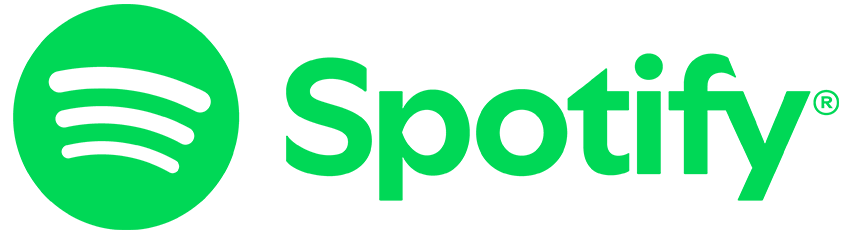
Today we will take a look at the brand and answer some of your most burning questions, like "What font does Spotify use?" and where you can find fonts similar to Spotify fonts.
What Is Spotify?
Spotify is a Swedish audio streaming provider founded by Daniel Ek and Martin Lorentzon in 2006 as a way to address the problem of music piracy, which was a growing challenge for the music industry and costing it millions of dollars.
Spotify offers recorded audio content, including music and podcasts, from record labels and media companies across the world, that you can listen to for free via the Spotify app. You can listen to Spotify on a range of devices, from your phone to TV, and transition from one to another with Spotify Connect. You can also upgrade to Spotify's paid service Spotify Premium to access more features.
Unlike downloads or physical sales that pay artists a fixed price per song or album sold, Spotify pays royalties based on the number of artist streams as a proportion of total songs streamed.
Today, Spotify is one of the largest music streaming service providers in the world, with over 574 million monthly active users and 239 million paying subscribers in more than 180 markets.
What Font Does Spotify Use?
In May 2024, Spotify updated its logo with a change to a new custom-created typeface called Spotify Mix. Created in partnership with Berlin-based foundry Dinamo Typefaces, Spotify Mix replaced the previously used font Circular and will be used across the Spotify platform for everything from playlists to marketing campaigns and more.
The main differences between the old and new logos are most obviously the sharp angles, as seen in the 's', 't', 'f', and 'y', the smoothness of the curves as seen in the 'p', and of course the reduction in the size of the Spotify symbol.
Most importantly, the Spotify Mix typeface is so versatile that it transforms itself to match its content when it is used in different places across the Spotify platform.
"To design this typeface, we broke free from traditional typographic constraints and merged elements from a variety of font styles .... The result is a sans-serif typeface that blends features from both classic and contemporary styles, creating a distinctive and unique look."
Rasmus Wängelin Global Head of Brand Design at Spotify
Spotify Wrapped
Spotify Wrapped took the streaming world by storm when it was launched in 2016 with a viral marketing campaign intended to promote it. Spotify Wrapped normally includes the musicians and songs a user has listened to most often throughout the year, as well as their favourite music genres.
Spotify Wrapped is released in early December each year, accompanied by billboards and television advertisements. Millions of users promote their Spotify Wrapped on their social media accounts, and this, along with its advertising generally, sees a boost to Spotify's app store ranking. Stand by for our update of Spotify Wrapped when it is released with the new Spotify Mix typeface.
10 Cool Fonts Similar to Spotify Mix
1. Franie Text Font (OTF, TTF, WOFF)
When you're looking for a Spotify text font, you can't go wrong with Franie. That's because Franie is one of those fonts similar to Spotify Mix that's a geometric sans serif. It offers 18 different weights, so you can mix the bolder weights for header text and the lighter ones for paragraph text.
2. Salmond Typeface (OTF, TTF, WOFF)
Salmond is a bold typeface that’s designed for both headers and paragraph text. It comes with six weights ranging from light to bold, with matching obliques. The font family includes upper and lowercase characters, numbers, punctuation, and multilingual support.
3. Ethos Nova (OTF, TTF, WOFF)
Here’s a minimalist neo-geometric sans-serif typeface that's perfect when you're looking for a Spotify text font for your next project. Ethos offers six different weights, each with an italic version. This is an excellent font for branding, logotypes, product designs, labels, and other special projects.
4. Walmut Geometric Font (OTF, TTF, WOFF)
Check out Walmut Geometric Font when you need a Spotify text font for branding or logo creation. This terrific font offers uppercase characters, numbers, punctuation, ligatures, and multilingual characters.
Any designer looking for fonts like the Spotify Wrapped font is bound to be drawn to Optika Minimalist Geometric Typeface. It’s a beautifully designed typeface with a clean style that makes it a great choice for both headlines and body text. It comes in seven different widths.